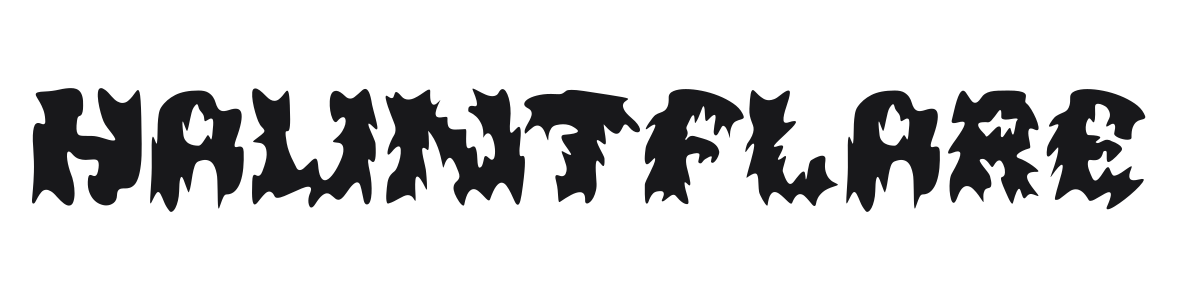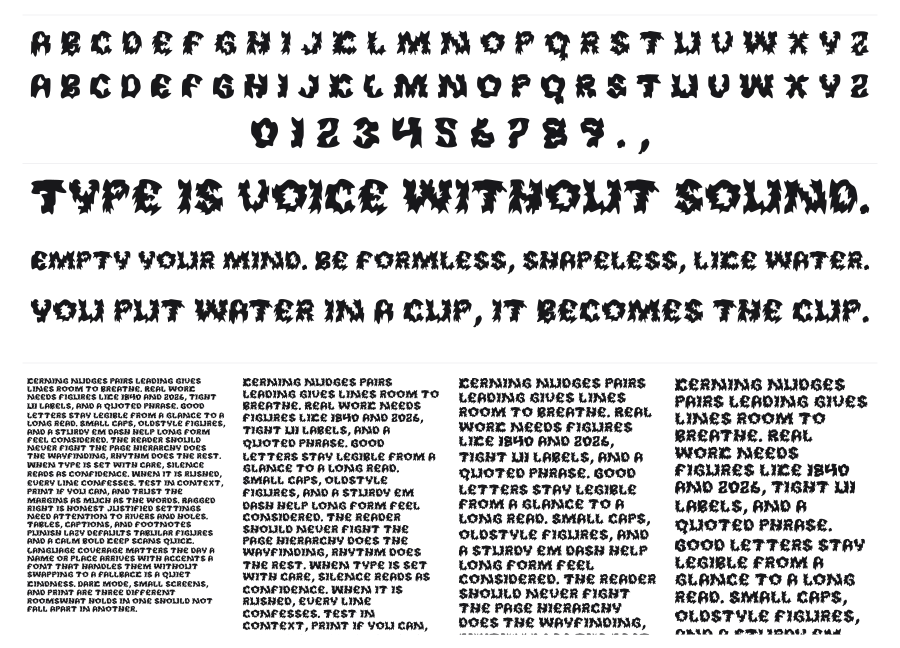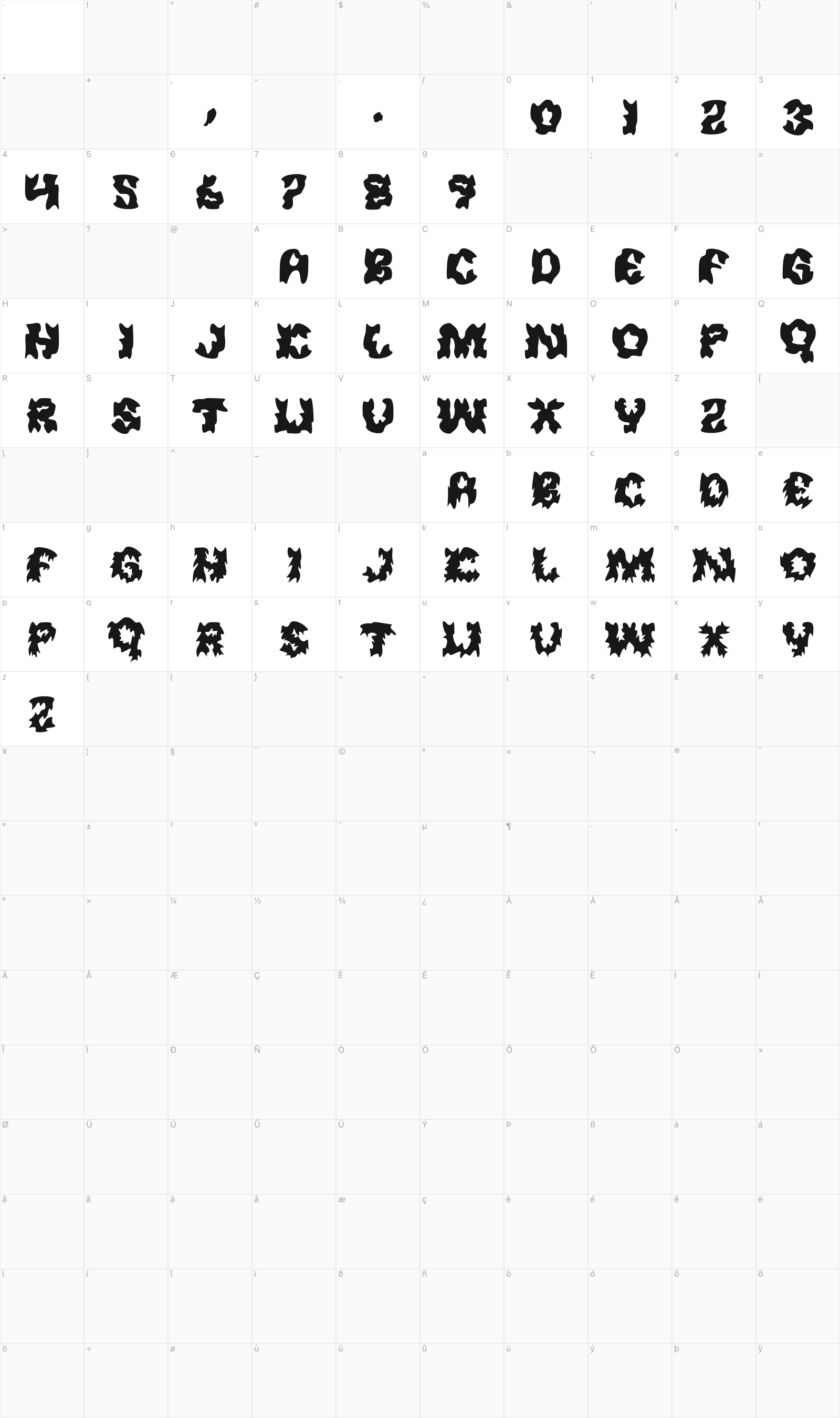
Hauntflare
Hauntflare is a heavy display font where every character looks like it has been clawed, bitten, and torn apart. The thick strokes are buried under aggressive spiky protrusions and jagged edges that give each letter a monstrous silhouette. It commands attention on horror posters, Halloween branding, and anything that needs an unapologetically dark edge.